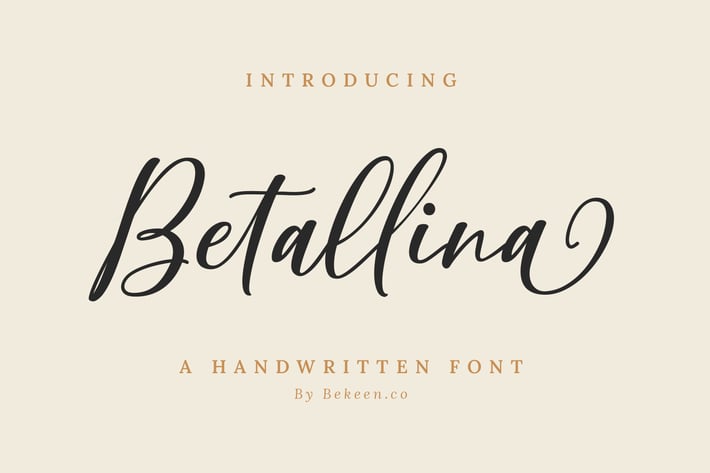
Betallina Handwritten Font
Betallina font is looking feminine and aesthetic, this font is suitable for headlines, quotes, wedding invitations, cards, and more. You will get a full set of lowercase and uppercase letters, numerals and punctuation, multilingual, ligatures, and swashes.
Ligatures & Swashes
Numerals & Punctuation